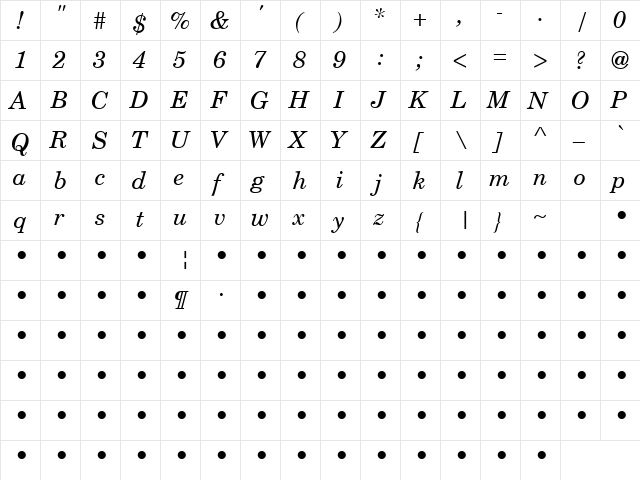
QTSchoolCentury Italic
Design Context for QTSchoolCentury Typeface
QTSchoolCentury takes a measured approach to typography — its balanced proportions and neutral character make it a reliable workhorse for both digital and print work. The slanted form adds forward momentum and visual energy.